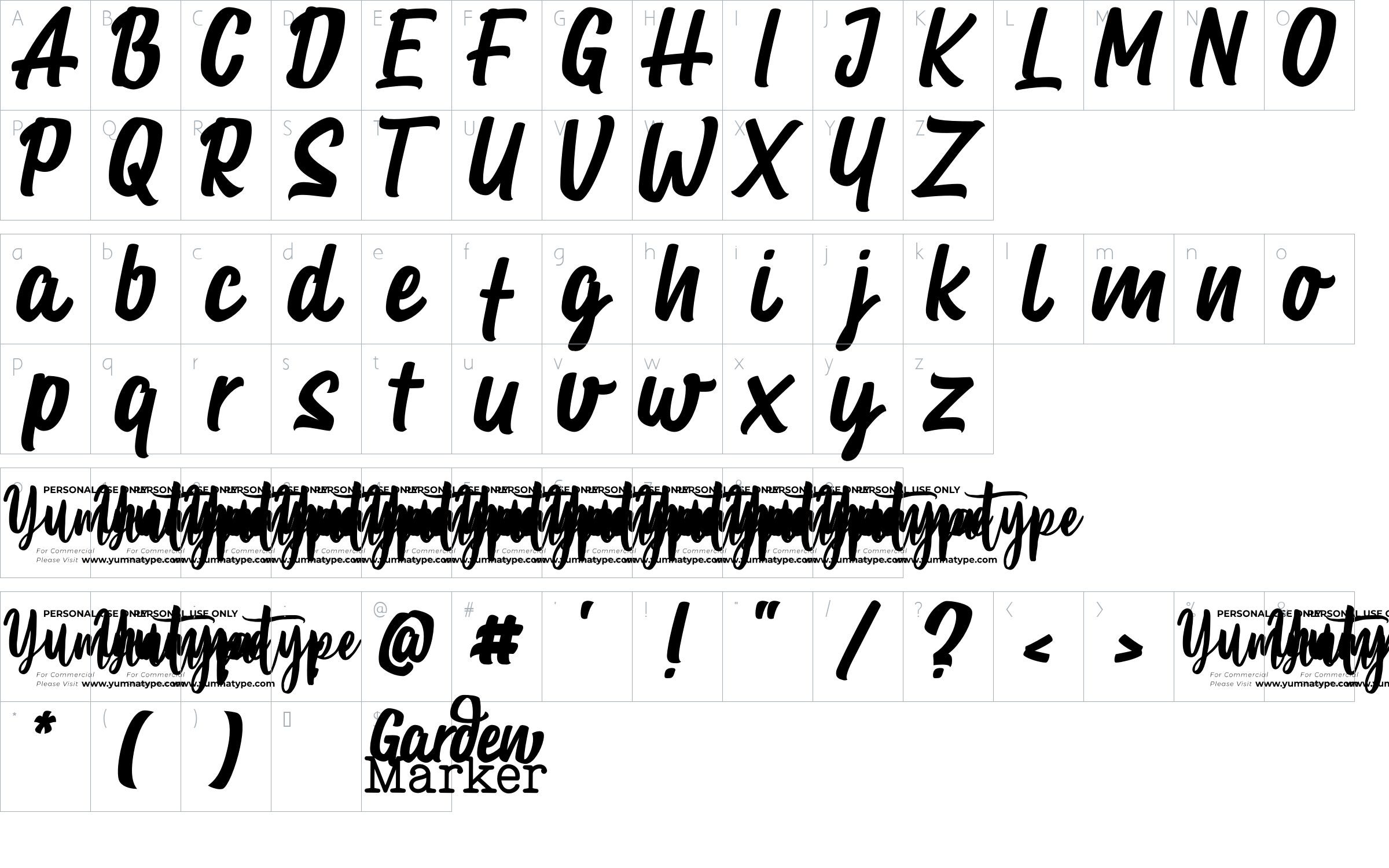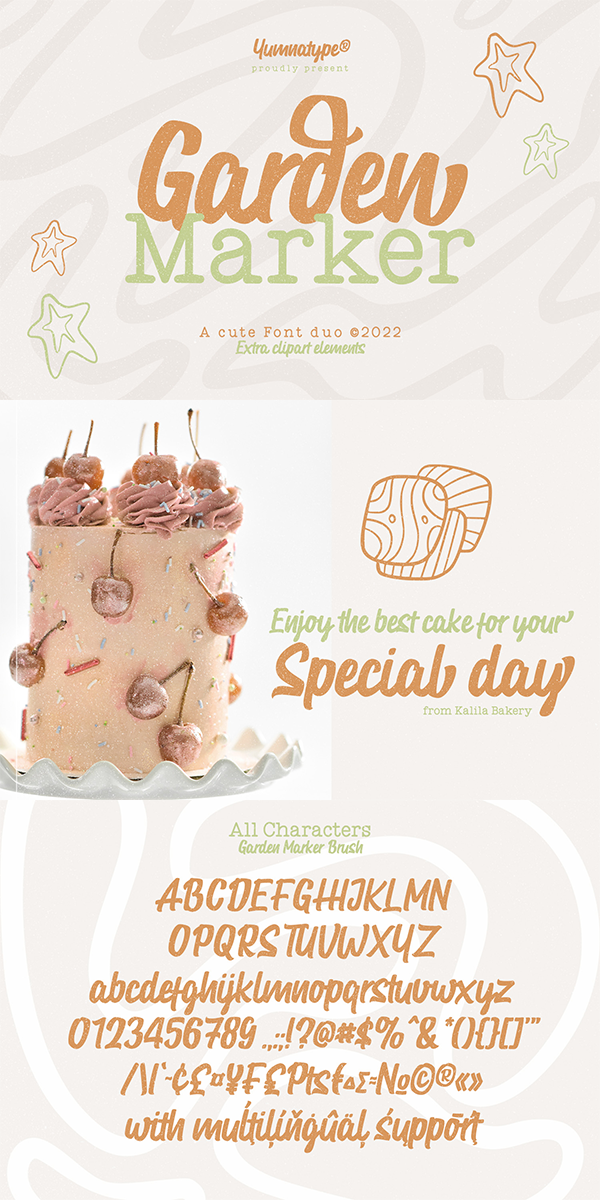
Garden Marker Font
About Garden Marker
Garden Marker is a beautifully designed font duo to add distinctive touch wherever they are used. This duo projects warm, friendly energy, elegant, as well as slightly cuteness feel. It is versatile enough to be used as title, body or button text. Furthermore, this font duo also offers a special extras i.e. 15 illustrations in total.
It is suitable for branding, logos, social media quotes, stickers, posters, vintage designs, wall art, merchandise, social media, and many more. Get more inspiration by seeing the preview.